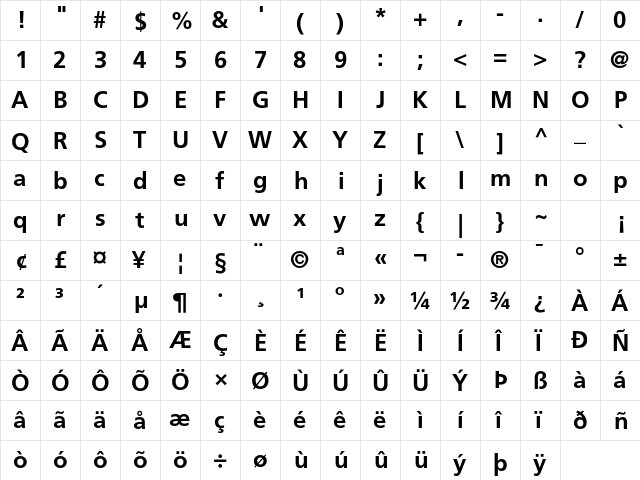
Frutiger LT Std 65 Bold
| Designer | Adrian Frutiger |
Design Context for Frutiger LT Std Typeface
Frutiger LT Std offers clean, dependable letterforms without strong stylistic allegiance, making it a practical choice for designers who need flexibility. The heavy weight commands attention and anchors typographic hierarchies.